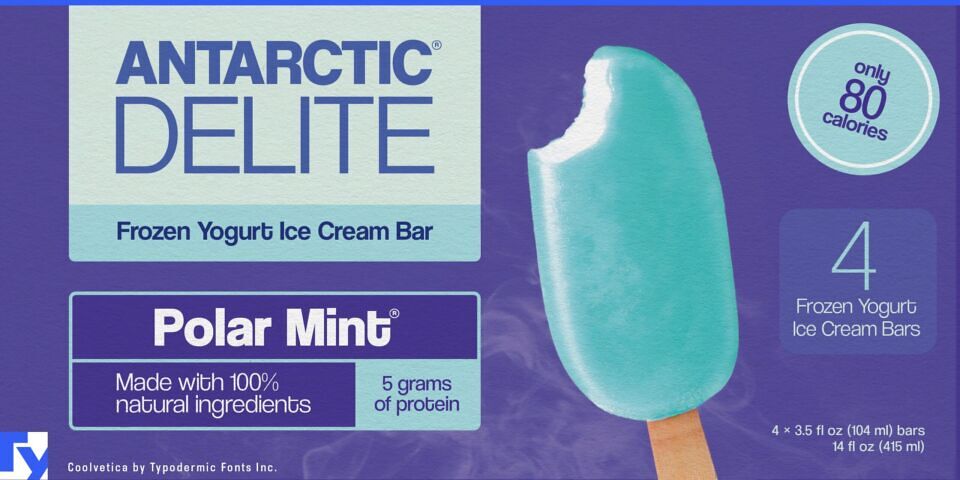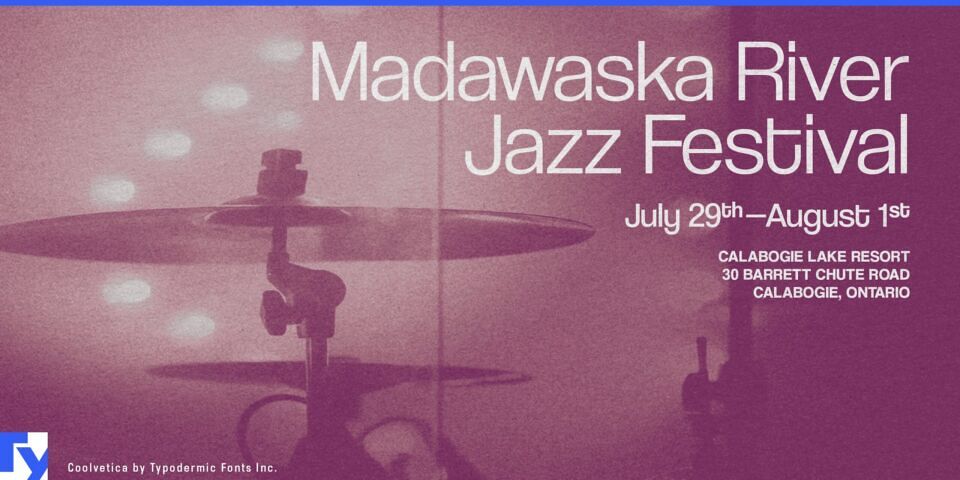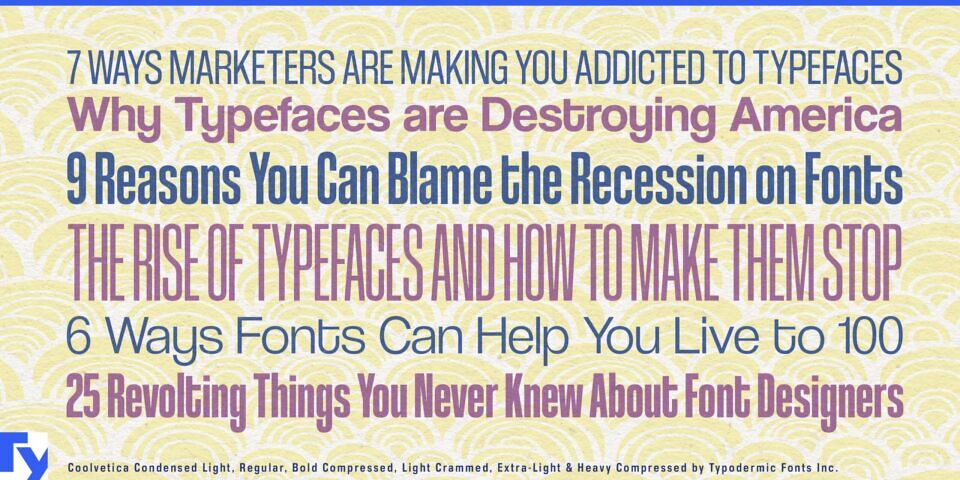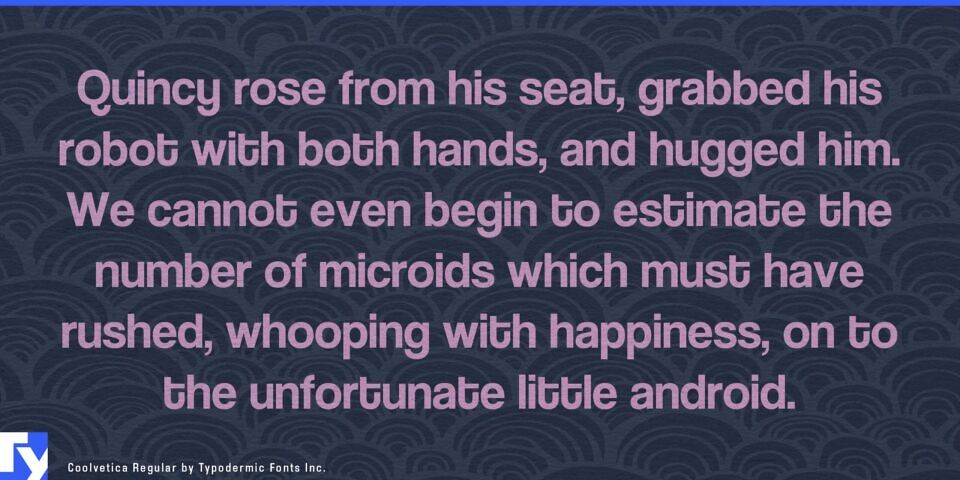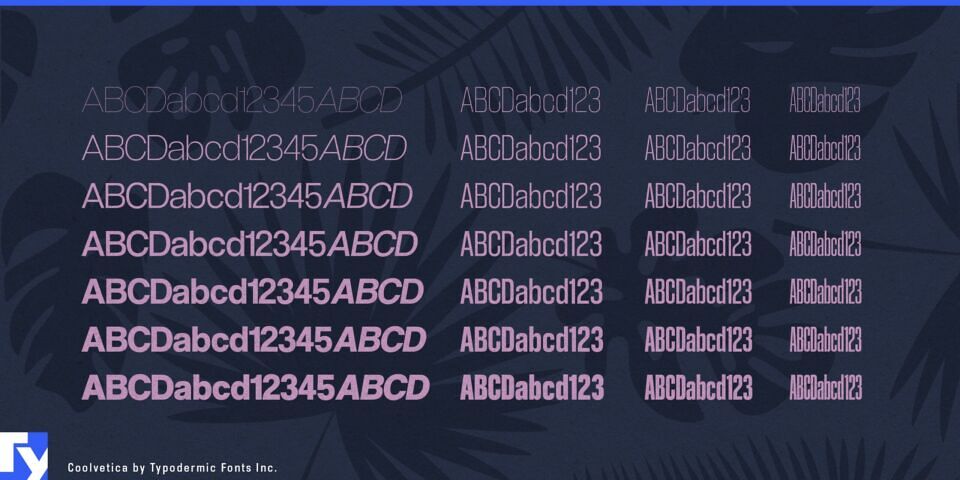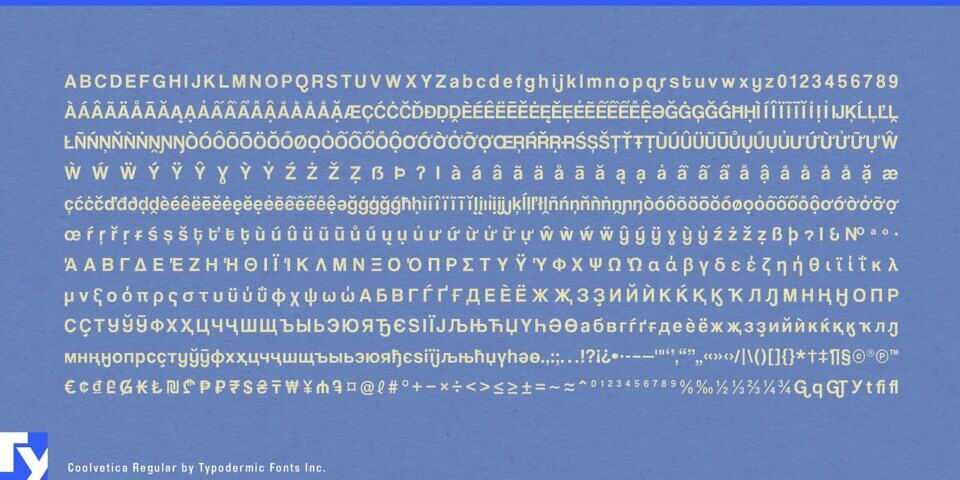
Coolvetica Font
Coolvetica, a sans-serif typeface, channels the 1970s’ groovy era, blending retro charm with modern flair. Inspired by Helvetica’s dominance, it features extra-tight kerning, playful curls, and a flat-sided design, capturing the era’s experimental typography.
This display font stands out with its condensed, compressed styles, making it ideal for bold, contemporary designs. Coolvetica includes mathematical symbols, OpenType fractions, and numeric ordinals, merging vintage appeal with modern functionality. Its extensive character set supports Latin, Vietnamese, Greek, and Cyrillic scripts, ensuring global appeal for diverse audiences. Perfect for designers seeking to make a statement, Coolvetica offers a rebellious, standout typographic edge.